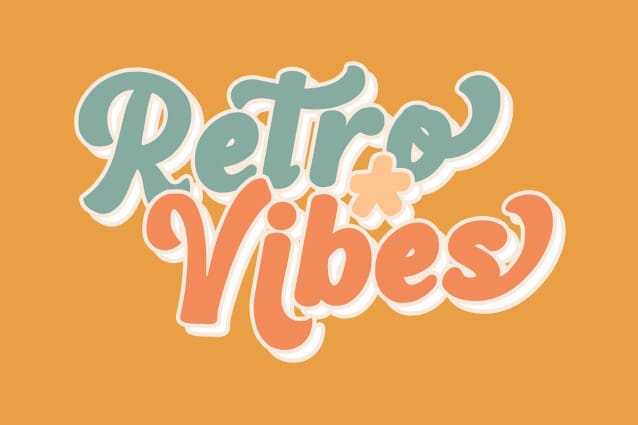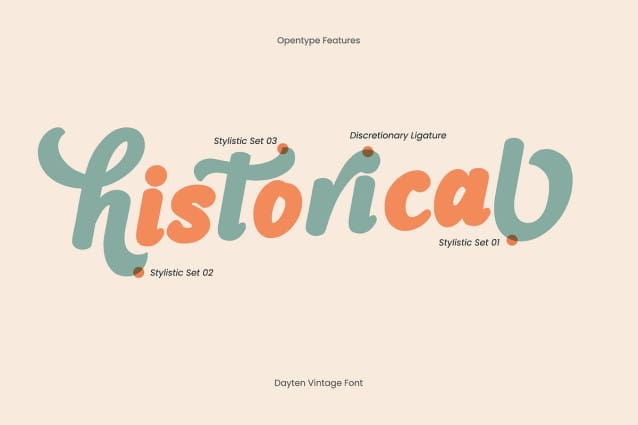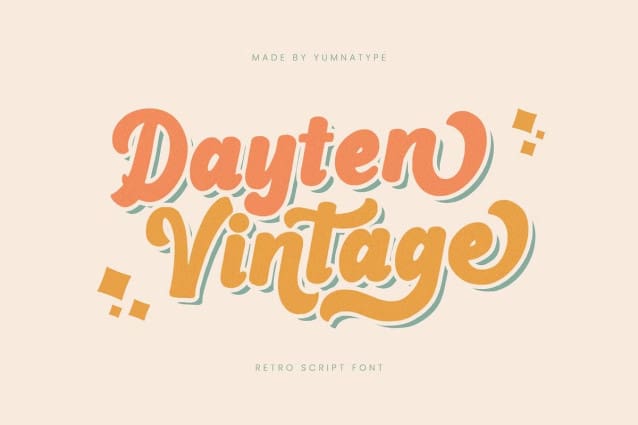
Dayten Vintage Font
Dayten Vintage Font is a charming script font that transports you back in time with its retro-inspired design. Crafted with a thick weight and rounded shapes, this font exudes a sense of nostalgia and warmth.
With its thick weight and rounded shapes, Dayten Vintage captures the essence of retro typography, evoking memories of old-fashioned signage and advertising. Each letter is meticulously crafted with smooth curves and flowing lines, creating a sense of fluidity and charm that is characteristic of vintage script fonts.